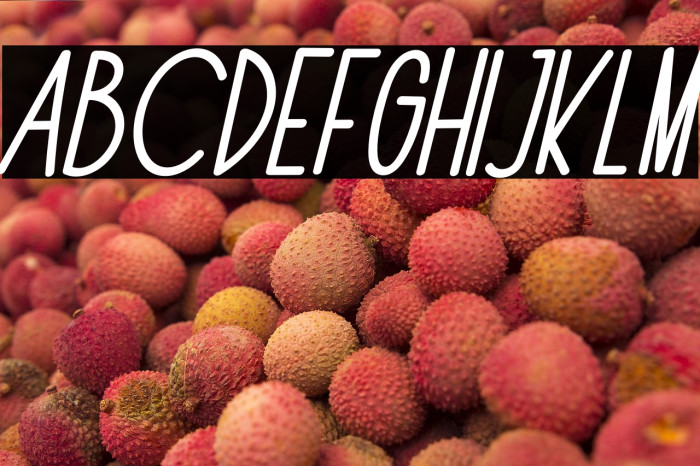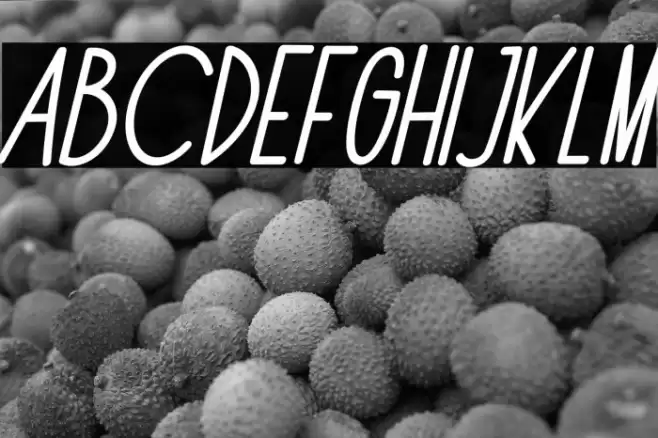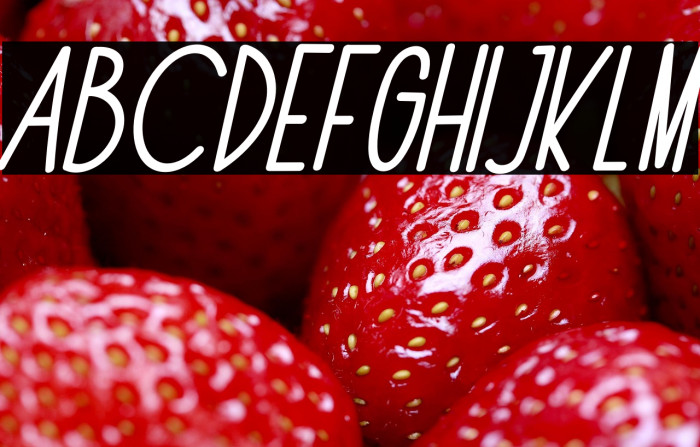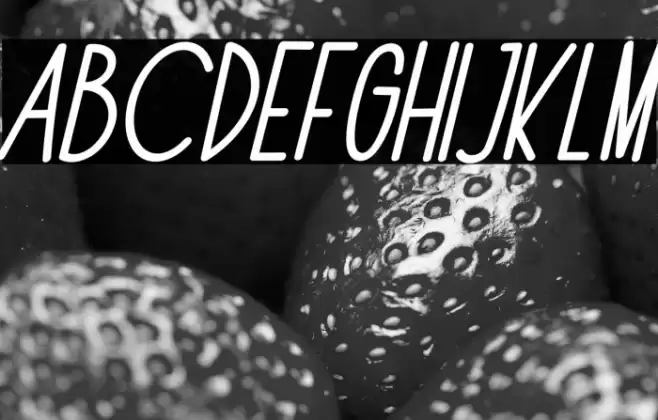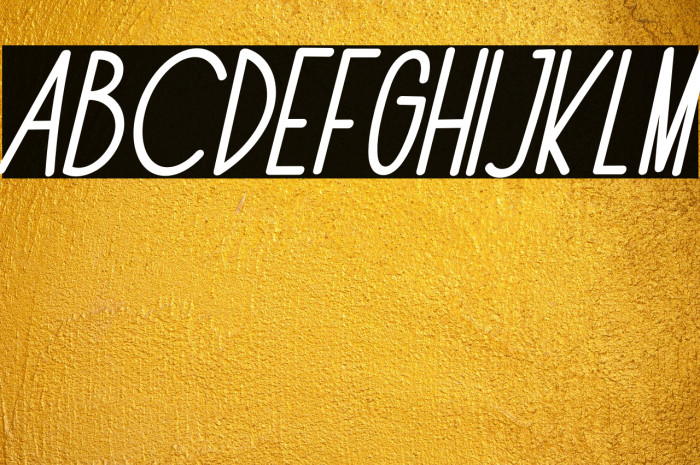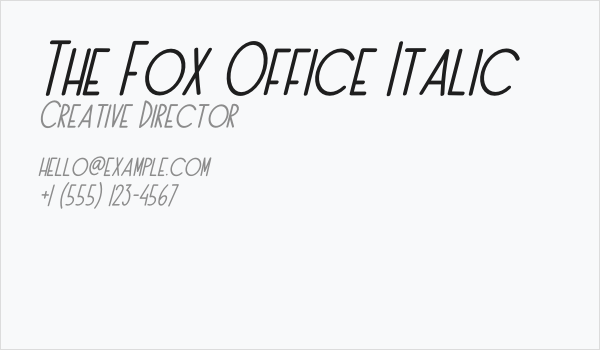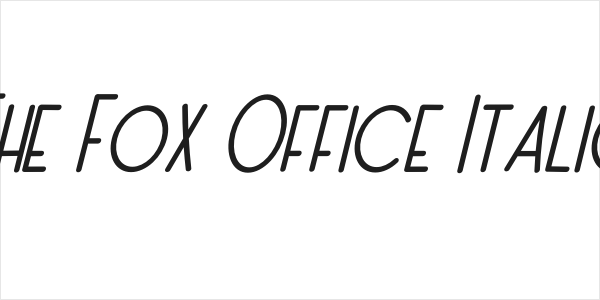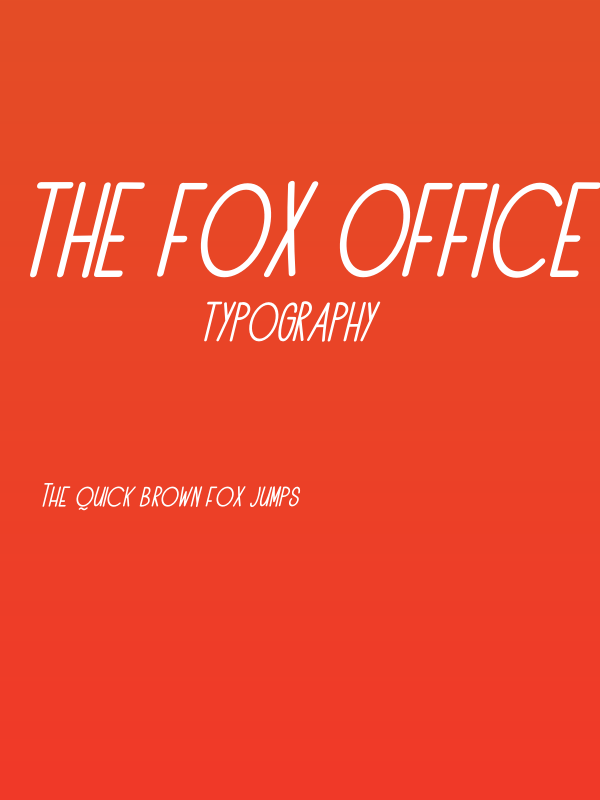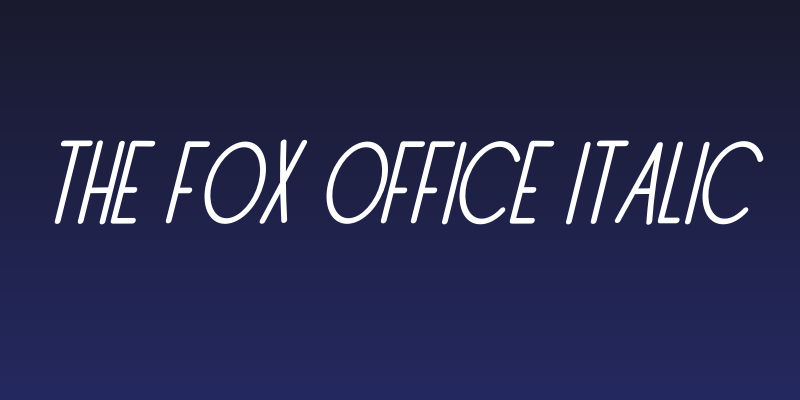
The Fox Office Italic Font
The Fox Office Italic Description
This font features a dynamic and energetic style, characterized by its italicized, elongated letterforms that convey a sense of motion and fluidity. The uppercase and lowercase letters maintain a consistent slant, enhancing the overall cohesive appearance. The numerals and special characters follow the same design principles, ensuring uniformity across all glyphs. The strokes are smooth and slightly rounded, giving the font a friendly and approachable feel. The spacing between characters is tight, which contributes to its compact and efficient look. This font is well-suited for projects that require a modern and lively aesthetic.
| Proposed Projects | Ideal for branding, advertising, and editorial design where a modern, energetic look is desired. |